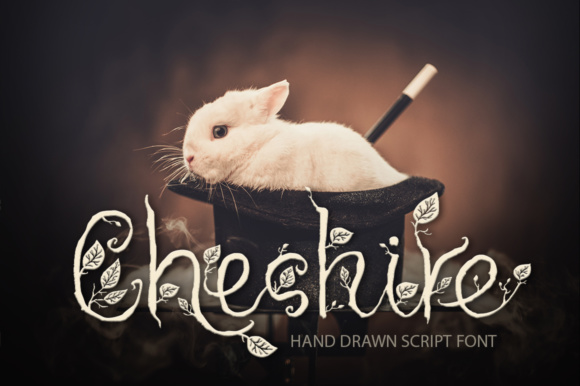
Cheshire Font
Dive into the world of handwritten elegance with Cheshire Font, a captivating script font that exudes creativity and charm. With its delicate strokes and flowing curves, Cheshire brings a touch of sophistication to any design project. From wedding invitations to branding materials, this font adds a personal touch that speaks to the heart.
Red Ink, the creator of Cheshire Font, has meticulously crafted each letterform to mimic the natural flow of a pen on paper. Its hand-drawn texture adds a sense of authenticity, making it perfect for creating designs that feel both timeless and modern. The abundance of ligatures and three alternate sets for the entire alphabet provide endless possibilities for customization, allowing you to create truly unique and eye-catching designs.
Whether you're a seasoned designer or just starting out, Cheshire Font is incredibly user-friendly. Easily access alternative glyphs by simply typing the number after any letter, eliminating the need for the Glyphs panel. This intuitive feature makes it a joy to use, allowing you to focus on letting your creativity shine through.
Cheshire Font's versatility knows no bounds. It's perfect for adding a touch of elegance to greeting cards, creating eye-catching posters, or designing stylish t-shirts and mugs. Its timeless appeal makes it suitable for branding materials, photography overlays, and much more.
With Cheshire Font, your designs will undoubtedly captivate and inspire. Its handwritten charm and endless customization options make it an essential tool for any designer looking to create truly stunning and memorable work. Embrace the beauty of handcrafted typography and let Cheshire Font elevate your designs to new heights. Discover the limitless possibilities and unleash your creativity today!